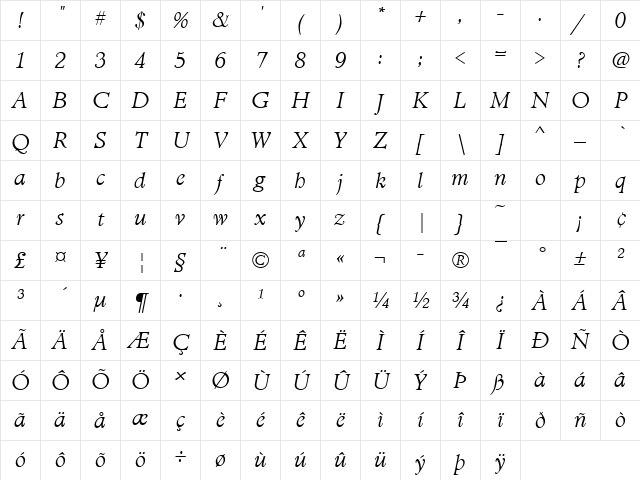
MinisterTLig Italic
MinisterTLig Family
MinisterTLig Italic
Design Context for MinisterTLig
MinisterTLig is a composed and adaptable typeface that performs quietly and consistently across a wide range of design contexts. The slanted form adds forward momentum and visual energy.
Pro Tip: Use MinisterTLig for emphasis, pull quotes, and subheadings where its slanted energy can add rhythm to the layout.